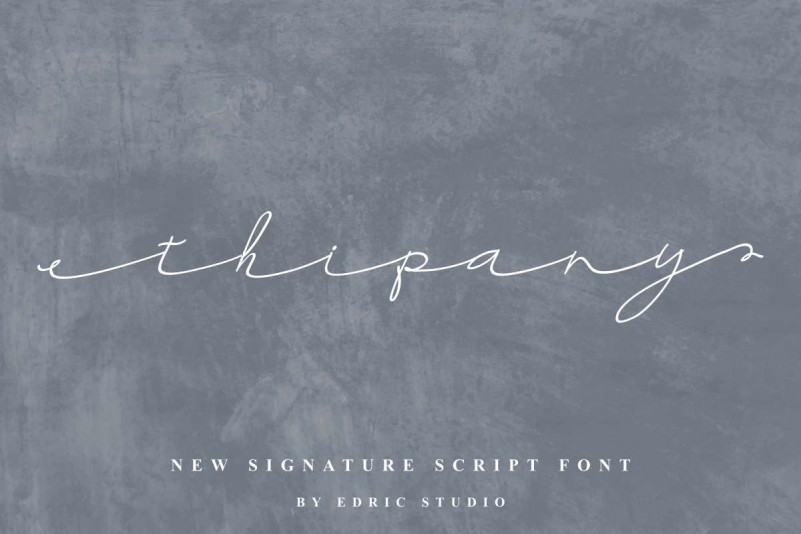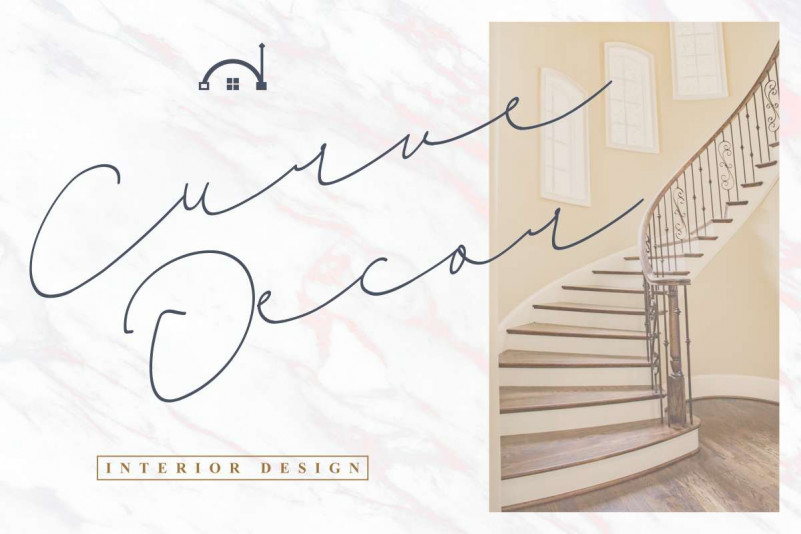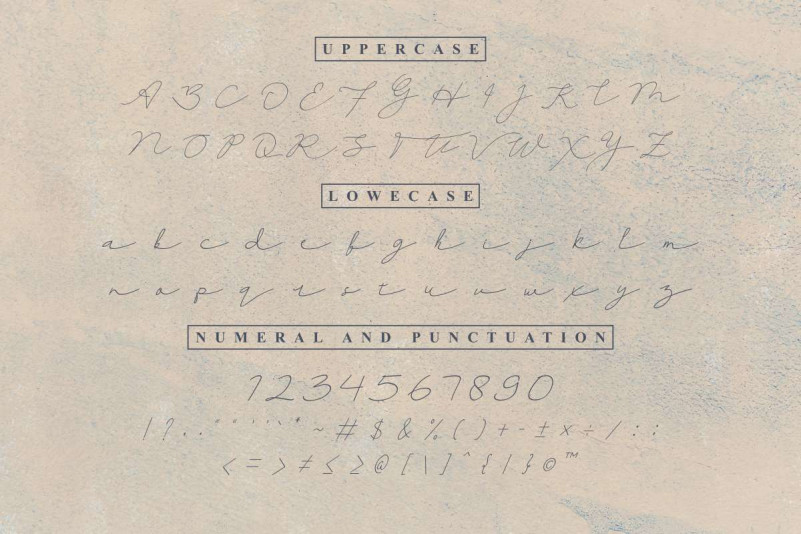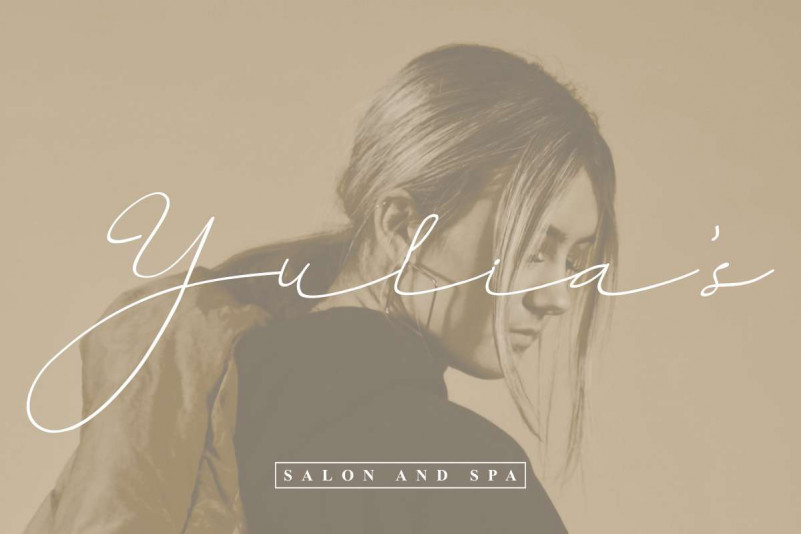
Thipany Signature Font
Hello Good People! In 2020, we at Edric Studio,. Present to you! our newest font family : Thipany Signature Font This is a signature script font. It has uniquely elegant glyhps. This font will be great for branding, logo, stationery, business card, signage, flyer, brochure etc. There are many industries that is suitable for this font : construction, real estate, services, law firm, make up et